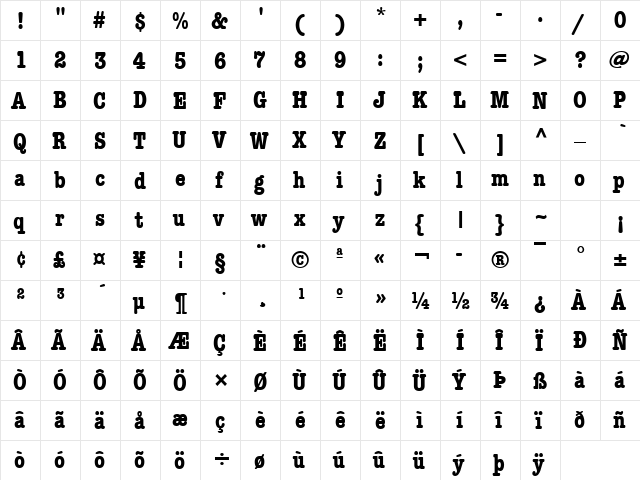
EditorCndn Bold
Design Context for EditorCndn Typeface
EditorCndn offers clean, dependable letterforms without strong stylistic allegiance, making it a practical choice for designers who need flexibility. Its bold stroke weight gives it real presence on the page.
Pro Tip: Pair EditorCndn with a font of contrasting weight or personality to build a more expressive typographic hierarchy.